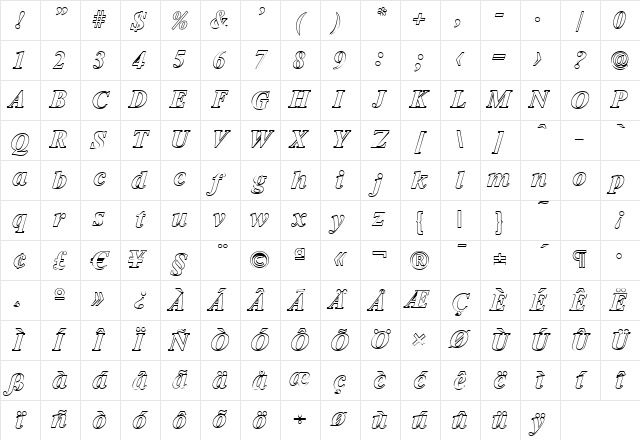
SimonBeckerOutline BoldItalic
SimonBeckerOutline BoldItalic Family
Complete SimonBeckerOutline BoldItalic glyph index. Displaying only characters natively supported by SimonBeckerOutline BoldItalic font.
Design Context for SimonBeckerOutline
SimonBeckerOutline is built around its visual character rather than neutral utility - its distinctive forms are designed to make an impression at display sizes. The slanted form adds forward momentum and visual energy. Its bold stroke weight gives it real presence on the page.
Font Pairing: Pair with a clean neutral sans-serif for body copy to let SimonBeckerOutline's character lead without overwhelming the composition.
Pro Tip: Use SimonBeckerOutline exclusively at display sizes - it was designed to be seen, not read at length. Let a neutral companion handle body copy.